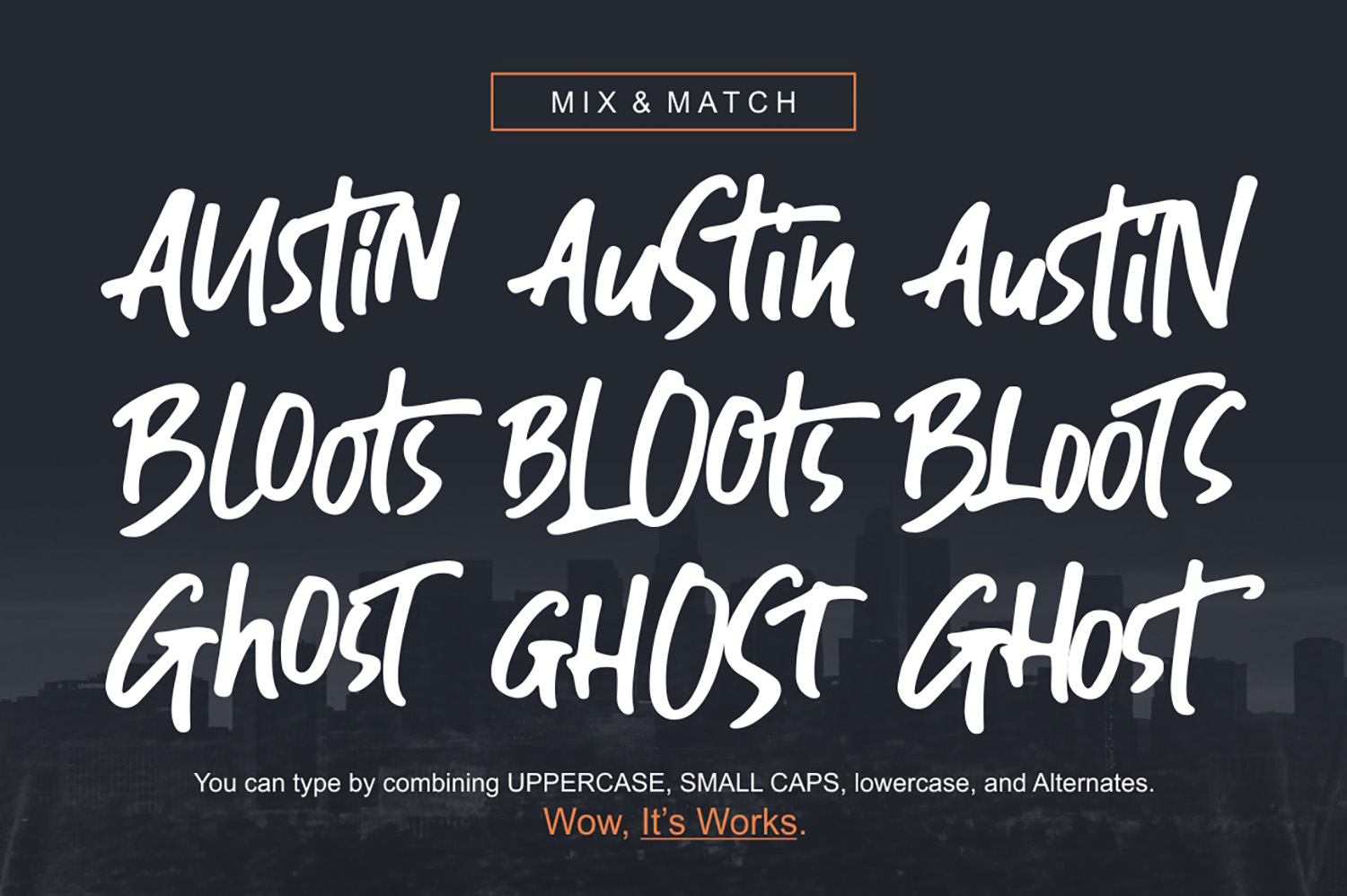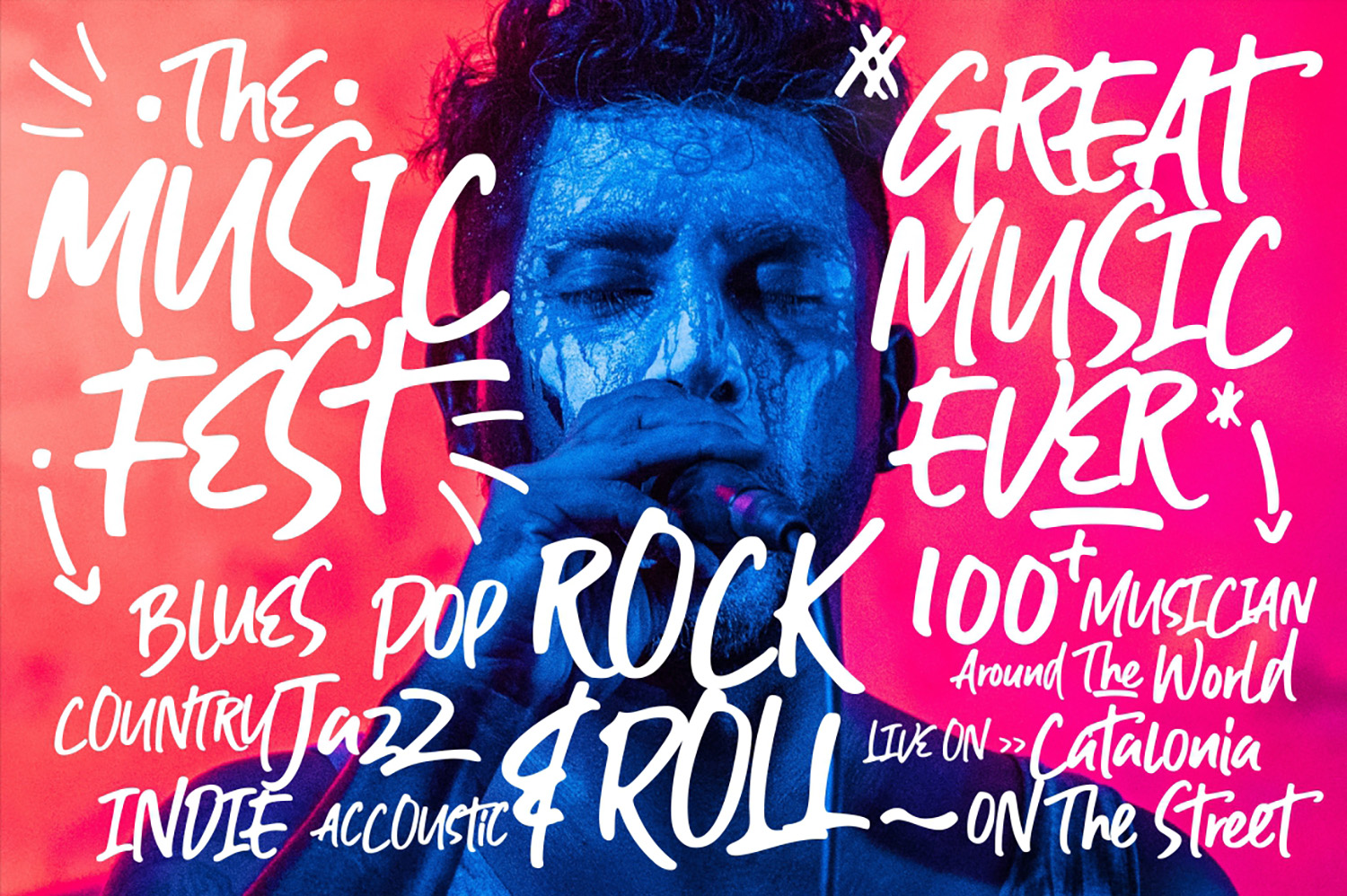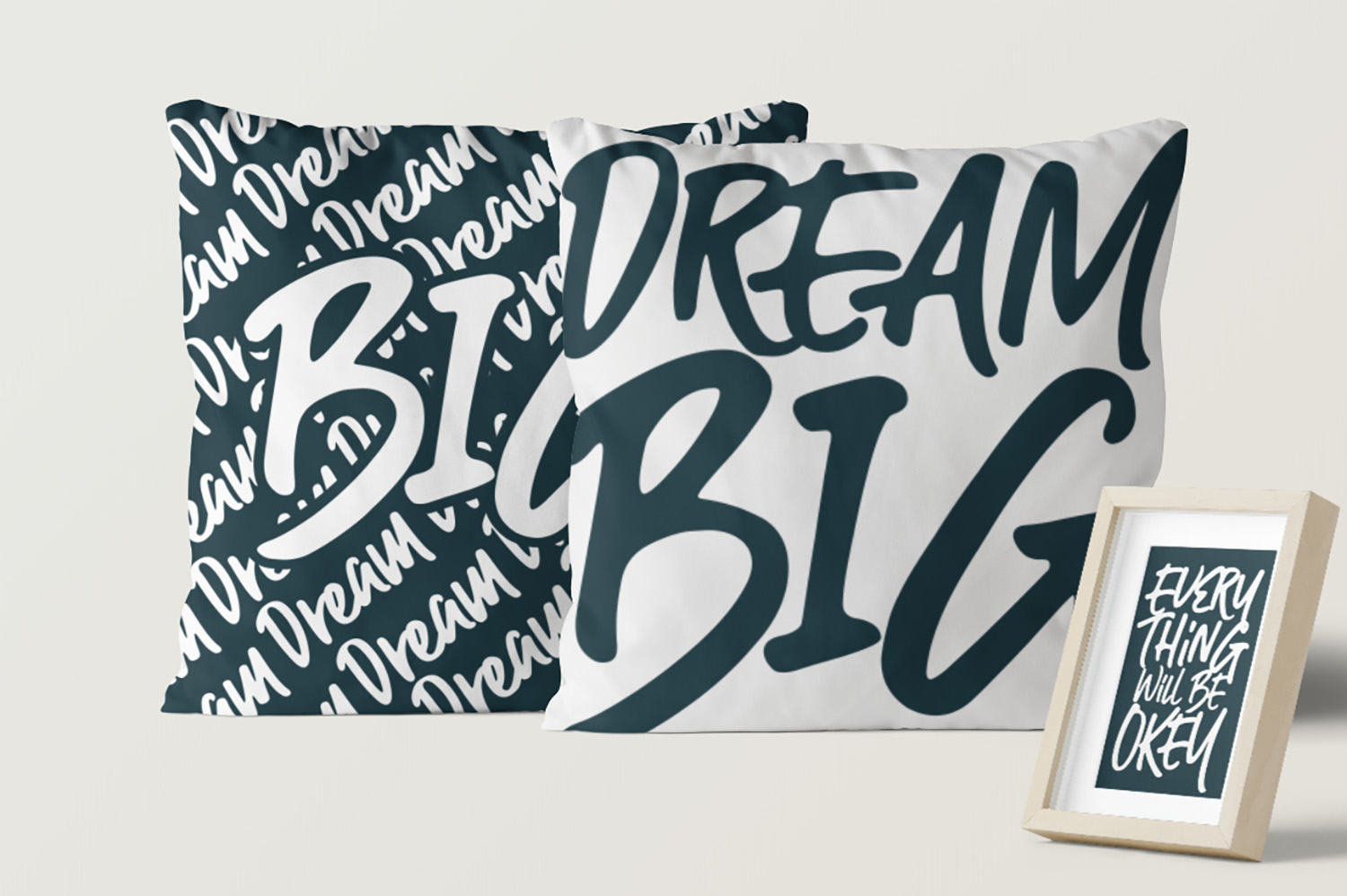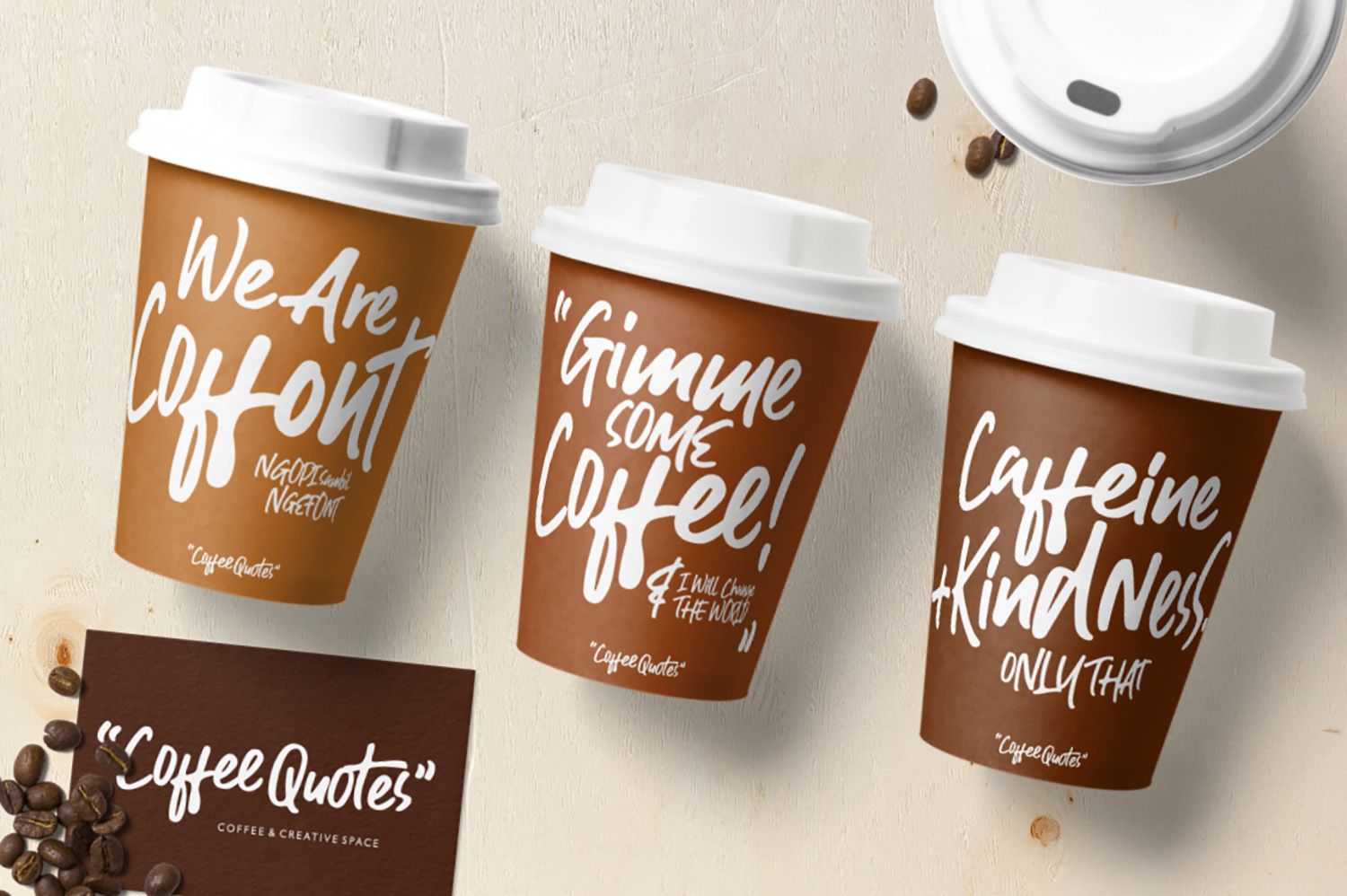
Guthen Bloots Free Font
Guthen Bloots Free Font is a smooth marker font with two stylish alternates. This font made with the perfect combining of each character. You can type by mix and match to get a unique combination. It looks original and can be used for all your project needs. Each glyph has its own uniqueness and when meeting with others will provide dynamic and pleasing proximity. This font can be used at any time and any project. This free typeface was designed by a talented AZetype86. If you like it don’t forget to check out the full version.